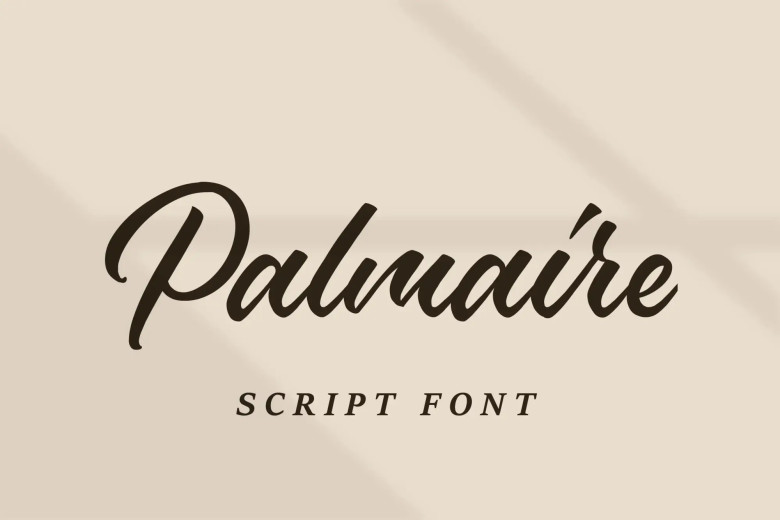
Palmaire Script Font is a sweet and brushed calligraphy font. This font is PUA encoded which means you can access all of the glyphs and swashes with ease! Assertive and flowing, this font will make each of your creations come alive!
Palmaire Calligraphy Script Font